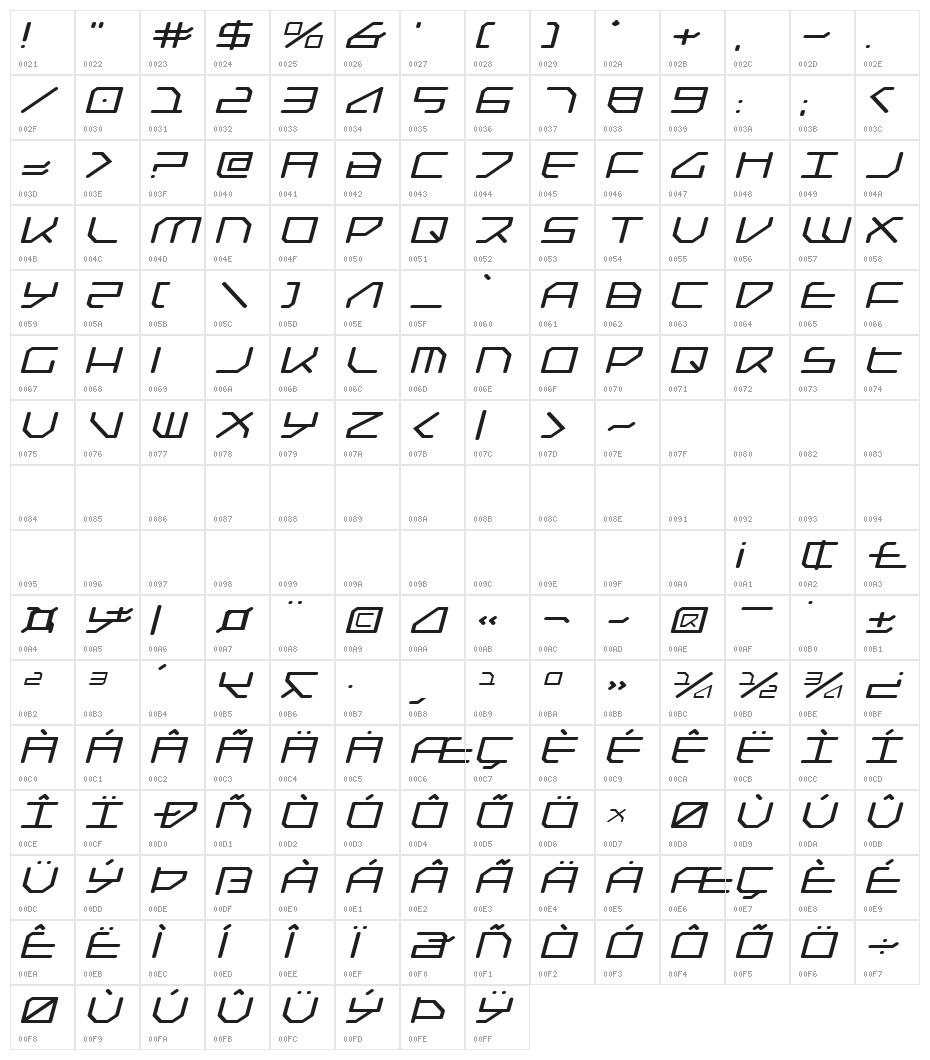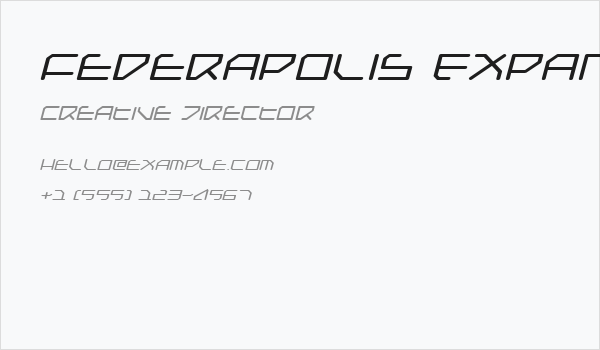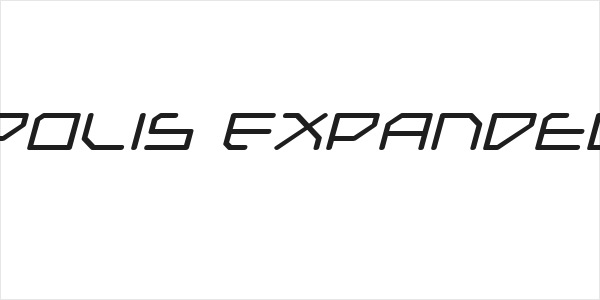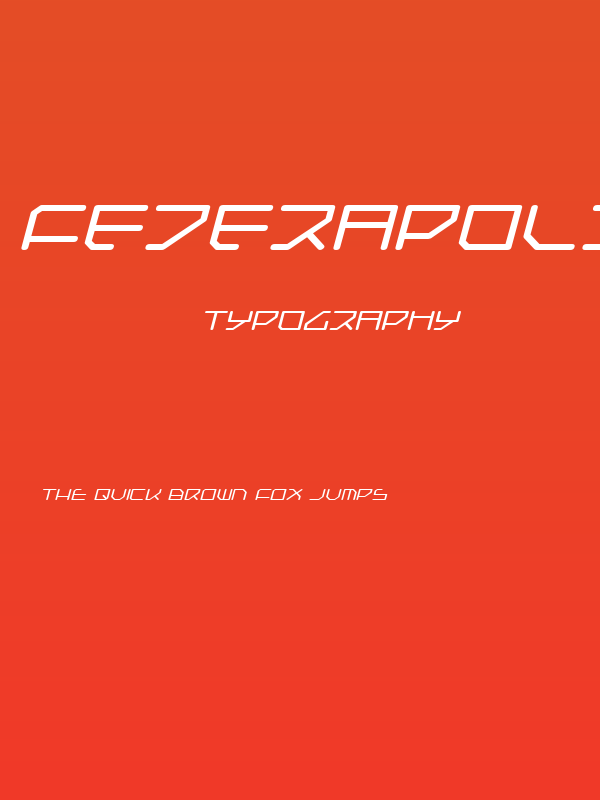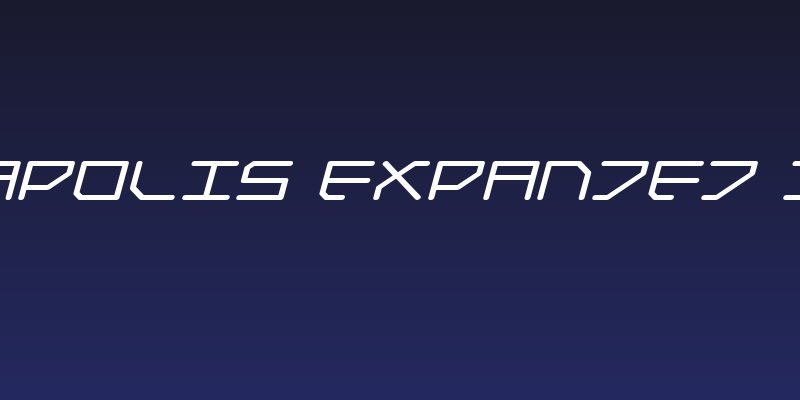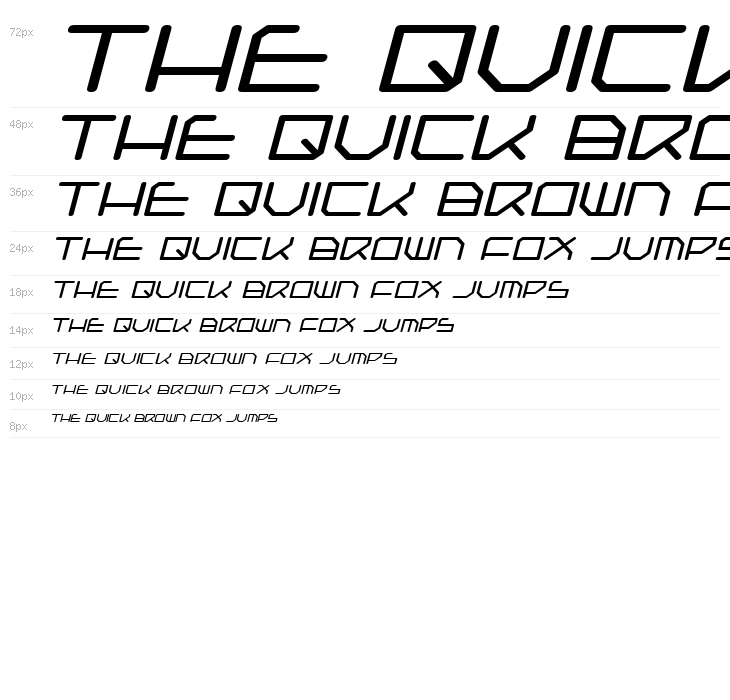
Federapolis Expanded Italic Font
Federapolis Expanded Italic Description
This font features a futuristic and geometric design with an expanded width and italic slant. The characters are constructed with clean, angular lines and a consistent stroke width, giving it a modern and technical appearance. The uppercase and lowercase letters maintain a uniform style, while the numerals and special characters complement the overall aesthetic. The font's unique style makes it suitable for projects that require a contemporary and innovative look.
Overall StyleFuturistic
Proposed ProjectsIdeal for technology branding, sci-fi posters, video game titles, and modern advertising.